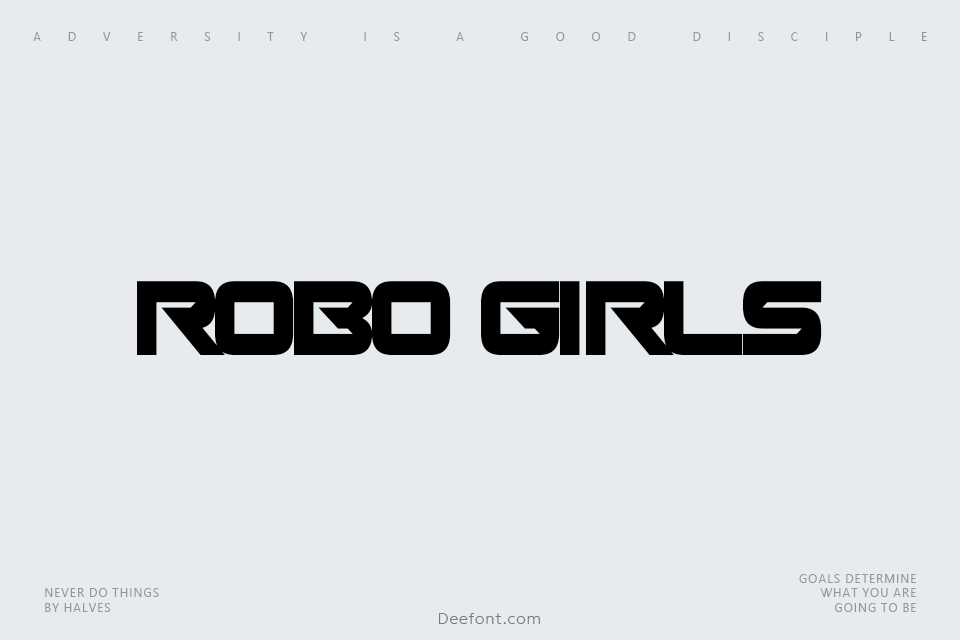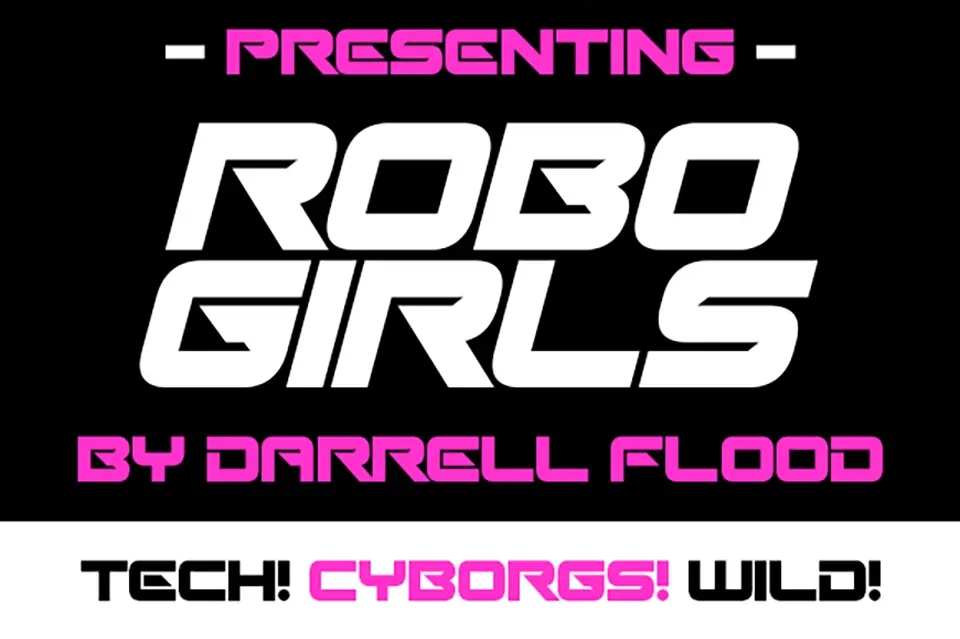
Robo Girls Font
Robo Girls is a striking futuristic display font featuring bold, strong, and unique sci-fi styles with modern curves and angles. Perfect for creating eye-catching titles, posters, magazines, branding projects, and web designs. This tech-inspired typeface combines sharp geometrical forms with dynamic character, making it an excellent choice for contemporary creative work that demands attention and personality. Available in regular and italic styles with comprehensive glyph support for professional typography applications.